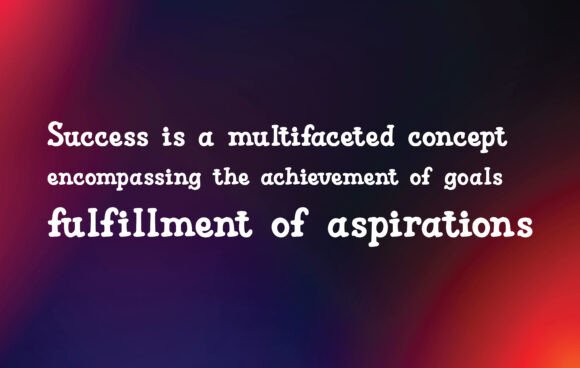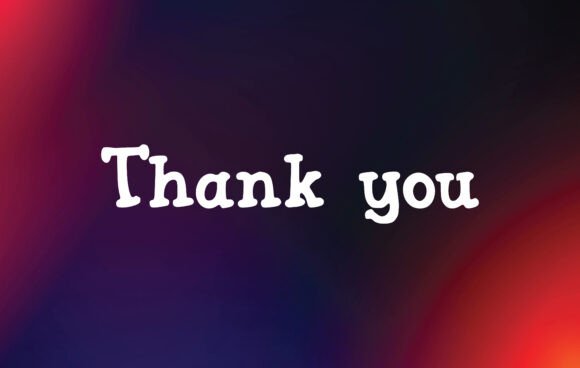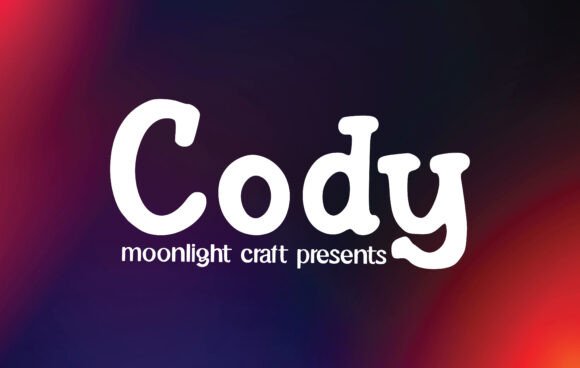
Cody Font: Elevate Your Creative Projects with a Lovely Handwritten Style
Are you on the hunt for a font that can add a touch of elegance and sophistication to your creative projects? Look no further than the Cody Font! This beautiful handwritten font is designed to take your designs to the next level, making it the perfect choice for crafters, designers, and anyone looking to add a personal touch to their work.
What Makes Cody Font So Special?
Cody is a lovely and beautiful handwritten font that boasts a unique and distinctive style. Its elegant and flowing lines make it perfect for creating eye-catching logos, branding, and quotes that are sure to grab attention. With Cody Font, you can add a touch of warmth and personality to your designs, setting them apart from the rest.
The Benefits of Using Cody Font
So, why choose Cody Font for your creative projects? Here are just a few benefits of using this amazing font:
- Elegant and Sophisticated: Cody Font features a beautiful, handwritten style that’s perfect for creating elegant and sophisticated designs.
- Versatile: This font is incredibly versatile, making it suitable for a wide range of creative projects, from logos and branding to quotes and more.
- Easy to Read: Despite its elegant style, Cody Font is easy to read, making it perfect for use in both digital and print designs.
- Unique: With its distinctive style, Cody Font is sure to help your designs stand out from the crowd.
Cody Font is a dream come true for designers and crafters. Whether you’re creating logos, branding, or quotes, this font is sure to inspire your creativity and help you produce stunning results. Here are just a few ways you can use Cody Font in your creative projects:
- Logo Design: Create eye-catching logos that showcase your brand’s personality and style.
- Branding: Use Cody Font to create consistent branding across all your marketing materials, from business cards to website headers.
- Quotes and Posters: Add a touch of elegance to your quotes and posters with Cody Font’s beautiful, handwritten style.
Tips for Getting the Most Out of Cody Font
To get the most out of Cody Font, here are a few tips to keep in mind:
- Experiment with Different Sizes: Cody Font looks great in a variety of sizes, so don’t be afraid to experiment to find the perfect size for your design.
- Pair with Other Fonts: Try pairing Cody Font with other fonts to create a unique and eye-catching design.
- Use in Digital and Print Designs: Cody Font is suitable for use in both digital and print designs, making it a versatile addition to your font library.
In conclusion, Cody Font is a beautiful and versatile handwritten font that’s perfect for designers and crafters. With its elegant and sophisticated style, this font is sure to elevate your creative projects and help you produce stunning results. Whether you’re creating logos, branding, or quotes, Cody Font is the perfect choice. So why wait? Download Cody Font today and start taking your creative projects to the next level!